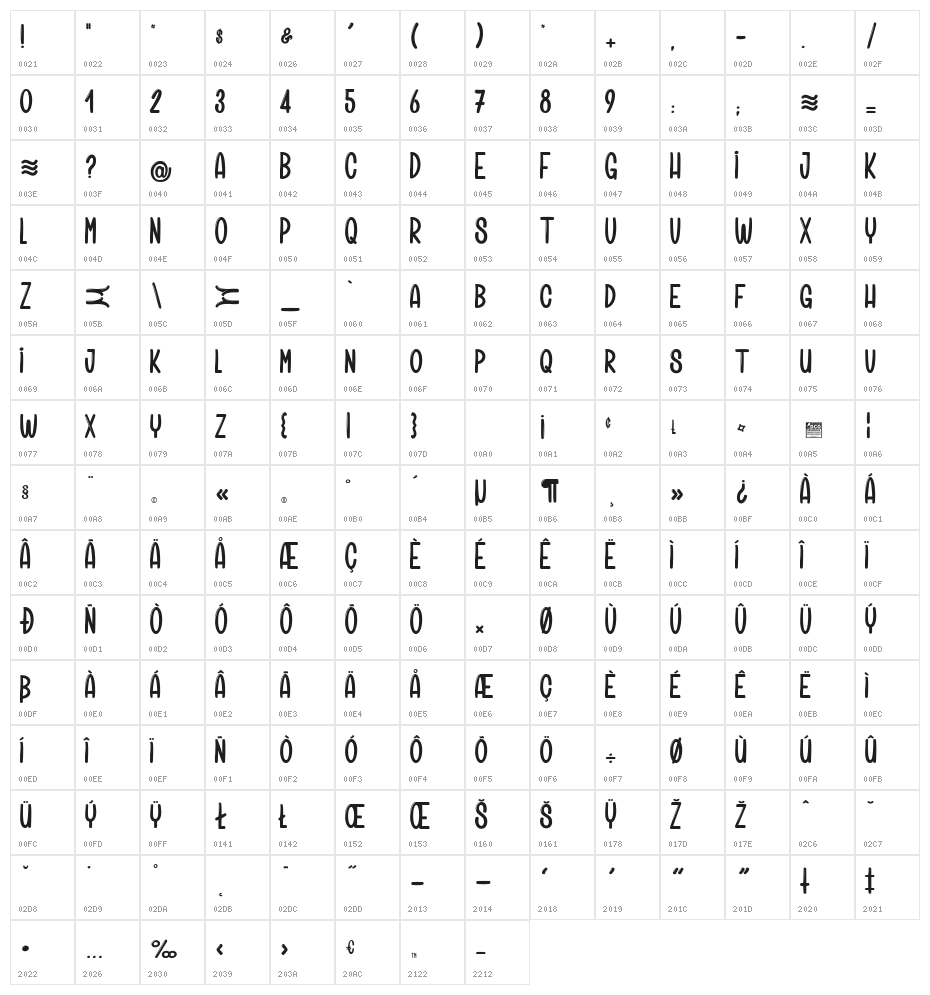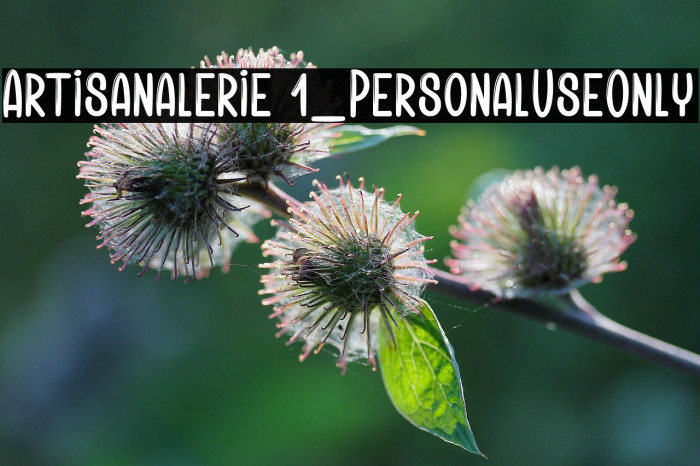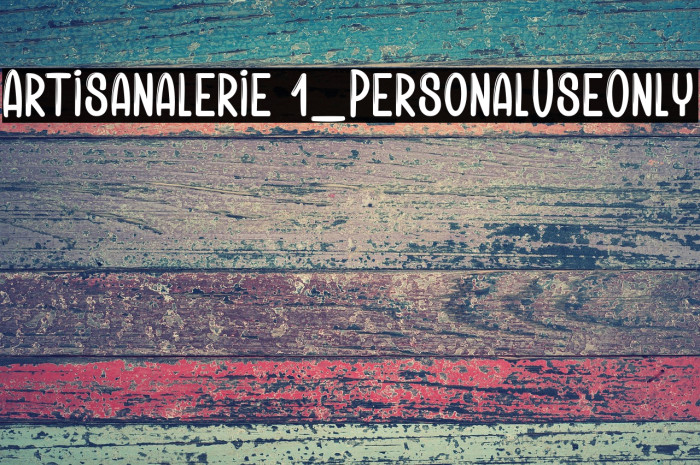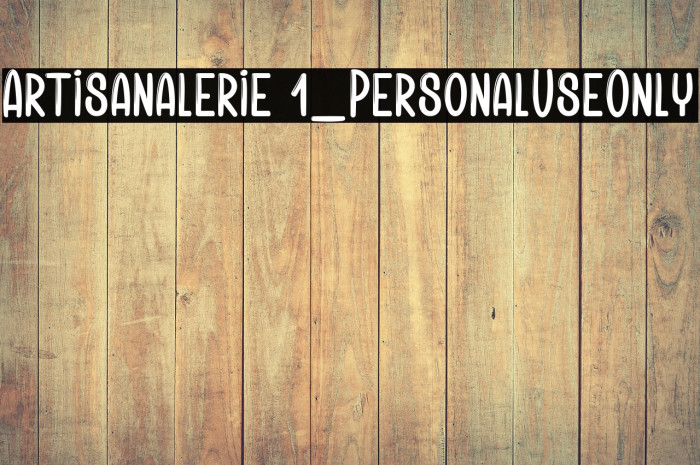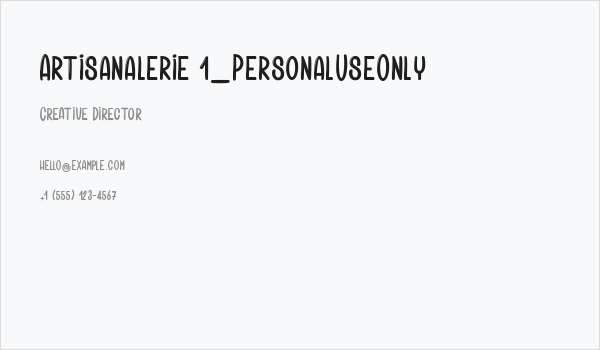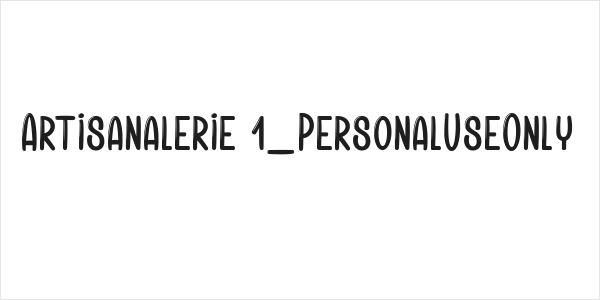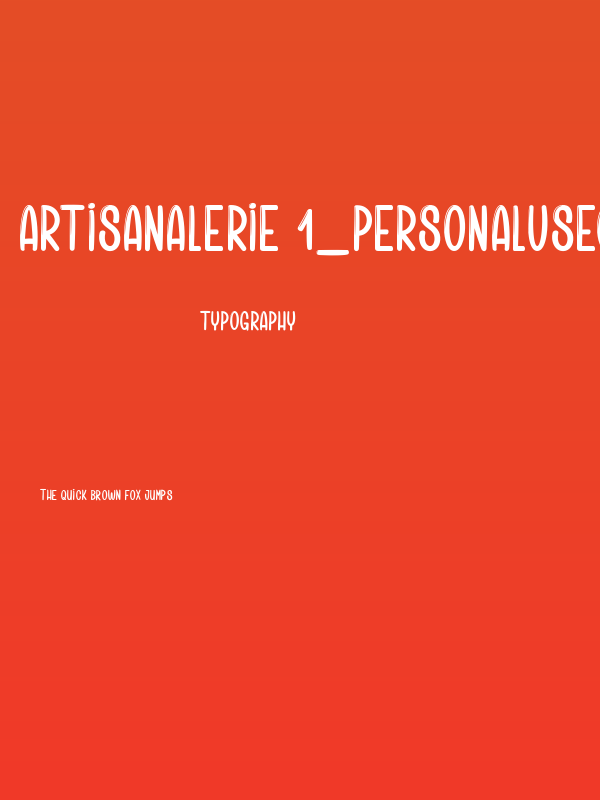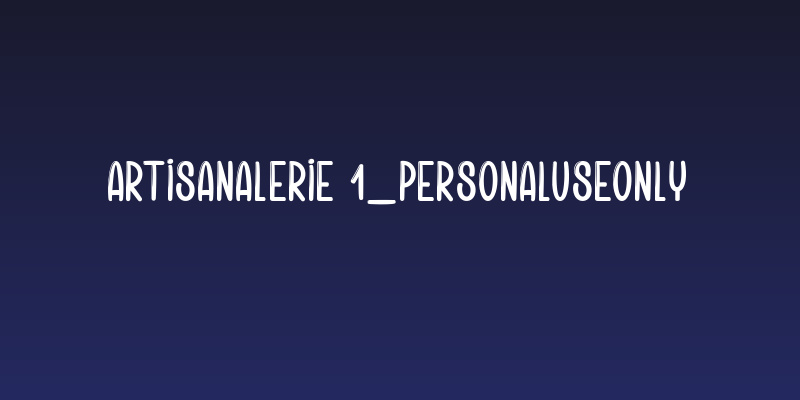
Artisanalerie 1_PersonalUseOnly Font
Artisanalerie 1_PersonalUseOnly Description
This font features a playful and bold design with rounded edges, giving it a friendly and approachable appearance. The characters are uniformly thick, providing a consistent and solid look across all letters and numbers. The uppercase and lowercase letters maintain a cohesive style, with a slight variation in height that adds to its charm. The numerals are clear and easy to read, matching the overall aesthetic of the font. Special characters are included, maintaining the same playful style, making this font versatile for various uses.
Overall StylePlayful
Proposed ProjectsIdeal for children's books, playful branding, posters, and social media graphics.